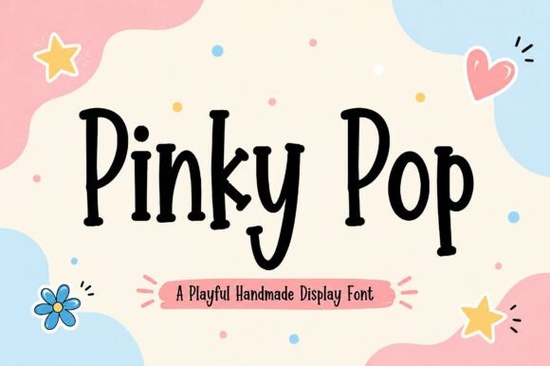
Looking for a font that feels fun, friendly, and full of personality? The Pinky Pop typeface is a playful handmade display font designed with quirky curves, uneven strokes, and an organic feel that brings warmth to any creative project. Whether you're working on kids' products, sweet branding, or playful packaging, this cheerful typeface delivers a handcrafted look that feels approachable and unique.
What Makes the Pinky Pop Font Different From Other Playful Typefaces?
Most playful fonts either look too cartoonish or too polished. Pinky Pop sits right in the middle it has a genuine handmade quality without feeling messy. The uneven letterforms give each character its own personality, which makes your text look alive rather than stiff and generic.
This kind of organic feel is hard to achieve with standard fonts. When you use this typeface, your designs naturally look warmer and more inviting. It's the difference between a mass-produced label and something that feels carefully crafted by hand.
Who Is This Font Best For?
Pinky Pop works especially well for designers and creators who target families, children, or fun-loving audiences. Here are some common uses:
- Kids' product packaging toys, snacks, baby items
- Candy and sweet brands bakery logos, chocolate wrappers, treat labels
- Invitations and cards birthday parties, baby showers, holiday greetings
- Sticker designs planner stickers, laptop decals, name labels
- Social media graphics Instagram posts, YouTube thumbnails, Pinterest pins
- Print-on-demand products t-shirts, mugs, tote bags
If you sell on Etsy, Redbubble, or run a small creative business, a whimsical typeface like this can quickly become one of your go-to options for seasonal designs, promotional graphics, and product mockups.
How Does It Compare to Other Display Fonts?
Creative Fabrica has a solid collection of display fonts, and each one serves a slightly different mood. Here's how Pinky Pop fits alongside similar styles you might consider:
- This sweet and cheerful option called Sunny Muff has a warm, bakery-inspired feel great if you want something soft and inviting for food-related designs.
- A relaxed, laid-back display style known as Lazy Daze works better for casual branding and lifestyle projects rather than kids' content.
- A bolder, more dramatic typeface Zombora makes an impact for edgy titles and eye-catching posters.
- A quirky Western-inspired option called Cowboy Zombie is fun for themed events or novelty designs.
Among these, Pinky Pop stands out for its versatility with family-friendly and sweet-themed projects. It doesn't try too hard the charm comes from its simplicity and hand-drawn texture.
The character set includes uppercase and lowercase letters, numbers, and common punctuation. This covers the basics for most design needs from logos and headlines to product labels and social media posts.
How Do I Get the Best Results With This Font?
To make this playful typeface really shine in your designs, keep these suggestions in mind:
- Use it at larger sizes. Like most display fonts, Pinky Pop looks best in headings and titles. At small sizes, the hand-drawn details can get lost.
- Pair it with a simple sans-serif. Body text works best alongside a clean, readable typeface. Let Pinky Pop handle the headlines while a neutral font covers the details.
- Add extra letter spacing if needed. The quirky shapes sometimes benefit from a little breathing room between characters.
- Test it on your actual product. Before finalizing a design, preview the font on a mockup especially for print-on-demand items where size and material affect readability.